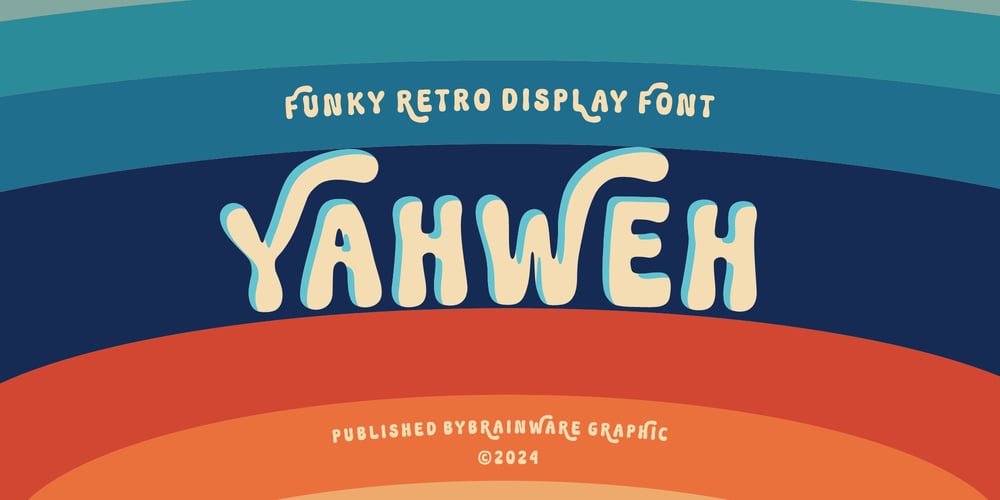
Yahweh Font Family was designed by Muhammad Jauhar Azmi and published by Brainware Graphic. Yahweh contains 1 styles and family package options. Yahweh is a retro hand-drawn display font that combines a playful style with a vintage feel. It features bold, irregular letters that look like they were crafted by hand, making it perfect for eye-catching headlines, posters, and designs that need a touch of nostalgia. This font adds a fun and unique character to any project!